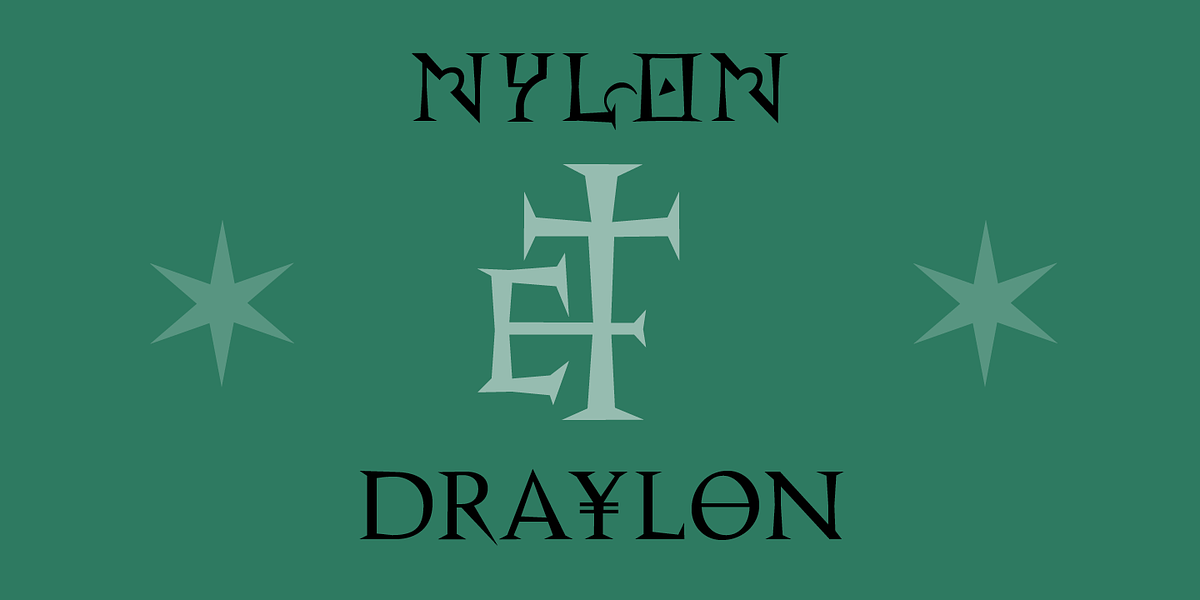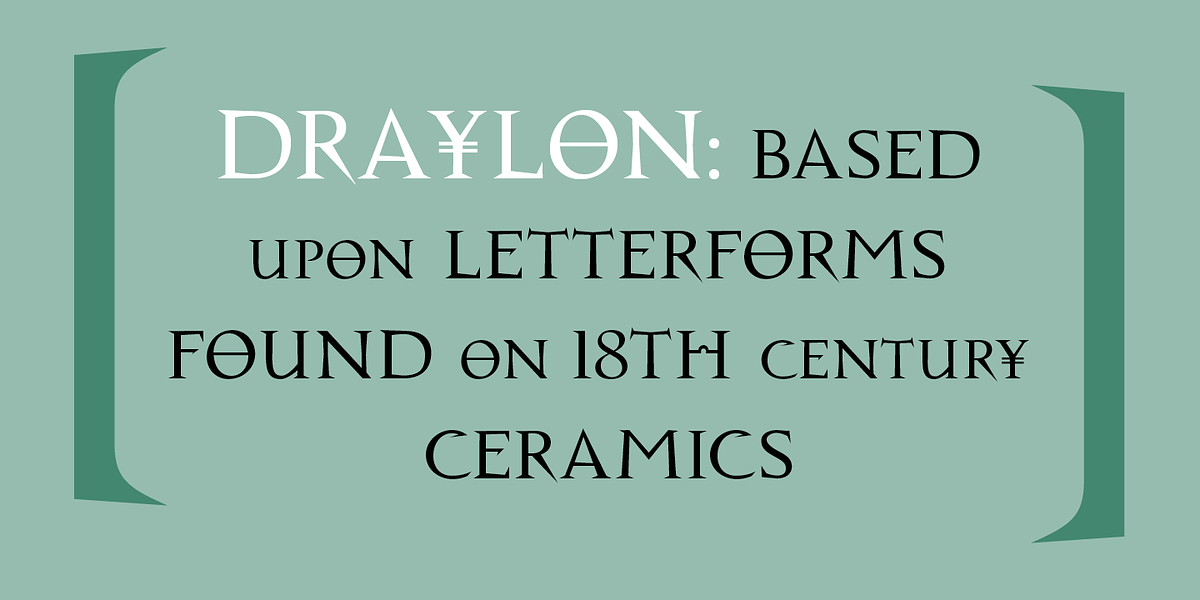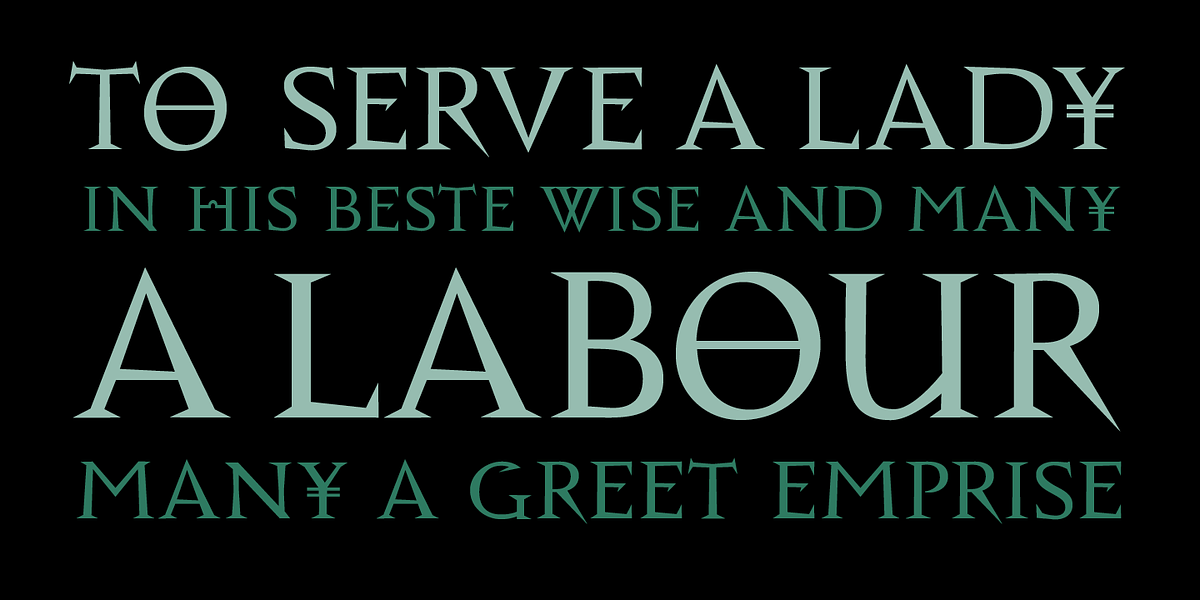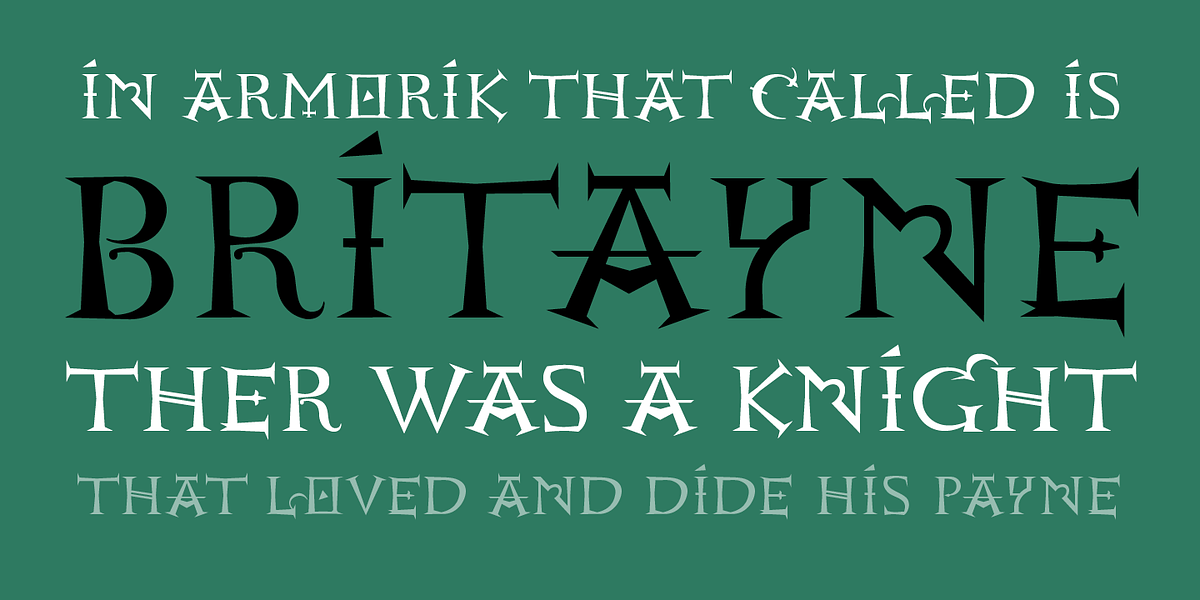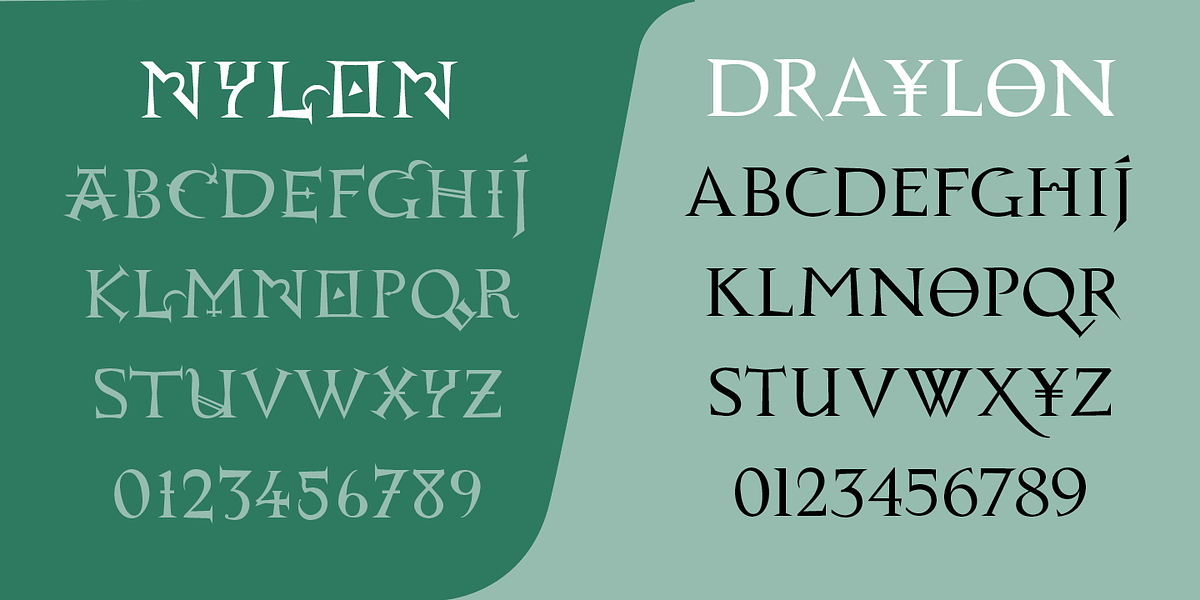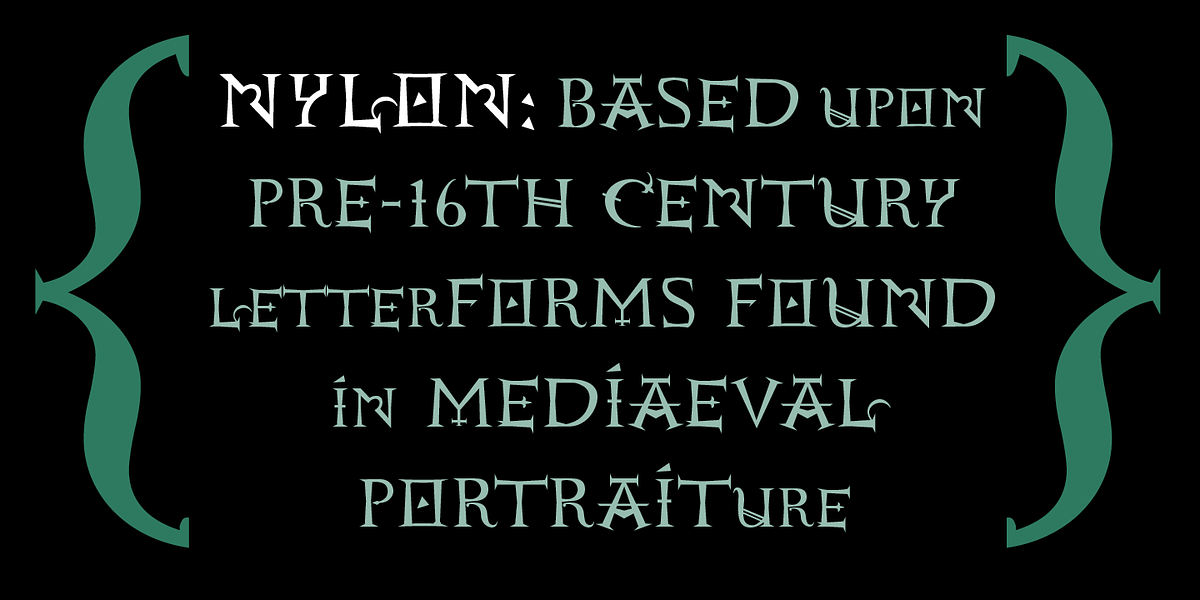
Nylon & Draylon
Nylon and Draylon are serif fonts designed to evoke a historical aesthetic. Nylon draws inspiration from pre-16th century letterforms found in medieval portraits at the National Gallery, London, while Draylon is based on letterforms seen on 18th-century ceramics. The fonts are intended to be used together for a cohesive look.